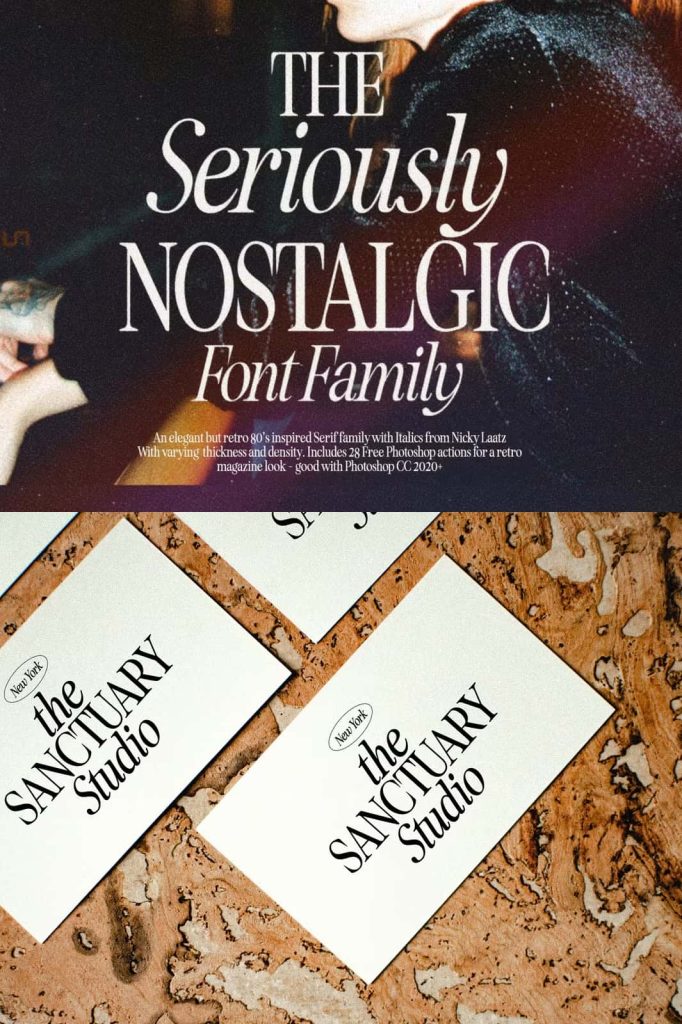
Seriously Nostalgic is a sophisticated serif font inspired by the charm and elegance of classic eighties magazines. Designed with creativity and versatility in mind, this font family captures the bold spirit and refined style of an era known for its expressive typography and strong editorial layouts. With multiple versions, contrast options, and a complementary italic style, Seriously Nostalgic offers everything you need to bring vintage sophistication into your modern design projects.
Experience the Elegance of the Eighties
The eighties were an iconic period in design history—filled with bold magazine covers, sleek advertisements, and distinctive editorial typography. Seriously Nostalgic brings that energy back to life with refined serifs, balanced contrast, and a clean geometric structure. Every letter is crafted to deliver a timeless aesthetic while maintaining a professional and readable form.
This font captures the glamour and artistic flair of high-end fashion magazines, creative publications, and luxury branding from the 1980s. Whether you’re designing a headline, logo, or layout, Seriously Nostalgic adds a touch of confident retro style that never goes out of fashion.
Multiple Versions for Maximum Flexibility
Seriously Nostalgic comes with two distinct versions, allowing designers to choose between varying levels of contrast and crispness. The first version delivers a sharp, high-contrast aesthetic ideal for dramatic headlines and standout titles. The second version offers a softer, more balanced appearance that’s perfect for body text or refined branding materials.
These variations make it easy to mix and match across your projects. From digital content to print media, the versatility of Seriously Nostalgic ensures that your design stands out with sophistication and flair.
Condensed Forms for Dynamic Design
In true eighties style, Seriously Nostalgic also features several degrees of condensed forms. This allows designers to experiment with space and proportion, creating attention-grabbing layouts that guide the viewer’s eye. Use the condensed styles for dramatic magazine headlines, posters, or editorial spreads that demand focus and impact.
By combining standard and condensed versions, you can craft a layered and dynamic composition that evokes the aesthetic of retro magazine covers while keeping your typography fresh and modern.
Perfect for a Wide Range of Design Projects
Whether you’re working on branding, advertising, editorial layouts, or web design, Seriously Nostalgic provides the perfect balance of elegance and personality. Its stylish serif details and italic companion make it an excellent choice for fashion labels, art publications, lifestyle blogs, and nostalgic product packaging.
The complementary italic version adds rhythm and contrast to your typography. It pairs beautifully with the main serif style, allowing you to create visually rich designs that express both refinement and character.
Bring Your Creative Vision to Life
With Seriously Nostalgic, you can blend the nostalgia of the eighties with modern design trends. This typeface family encourages experimentation—layering styles, mixing contrasts, and exploring condensed proportions to achieve unique results. Every variation harmonizes perfectly, making it easy to design projects that look professional, creative, and timeless.
Seriously Nostalgic is more than just a font—it’s a tribute to an era that defined bold editorial aesthetics. With its multiple versions, italic options, and condensed styles, it offers designers the tools to create stunning visuals inspired by the past but designed for the present. If you’re looking to add sophistication, style, and a touch of vintage flair to your next project, Seriously Nostalgic is the perfect choice.